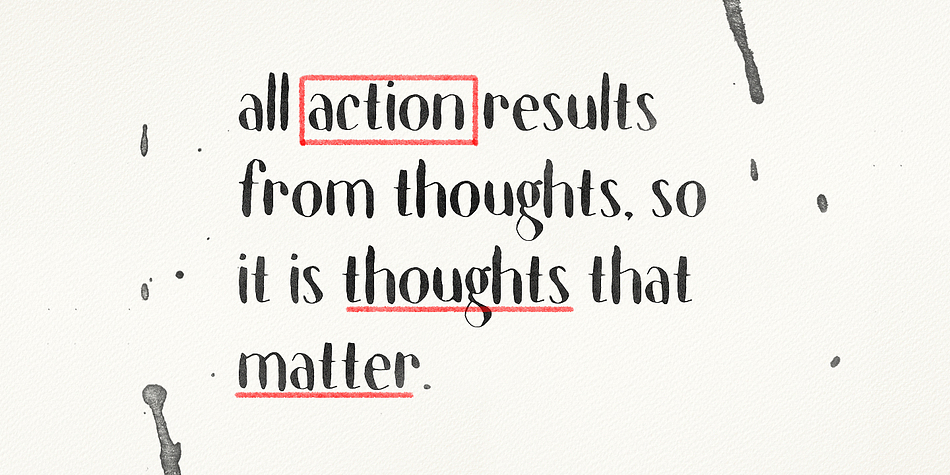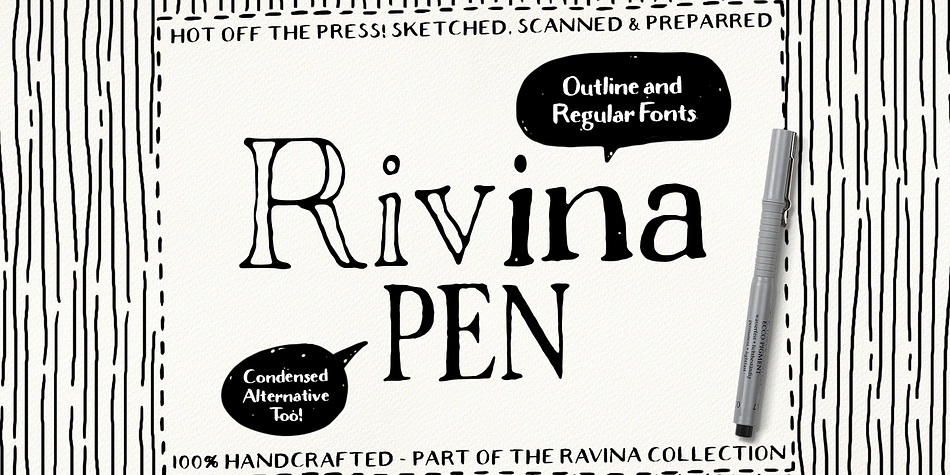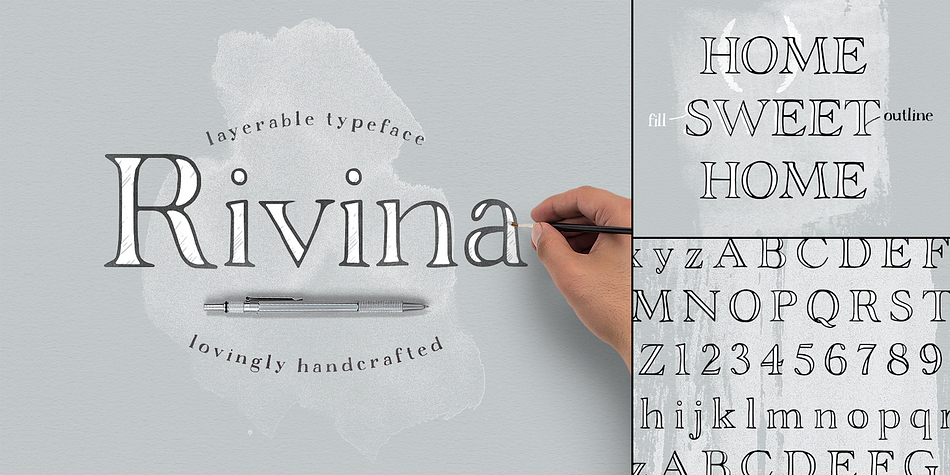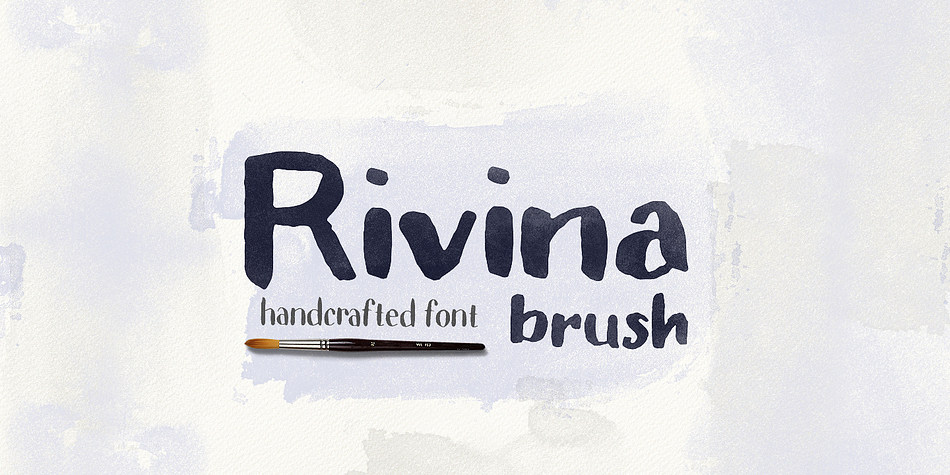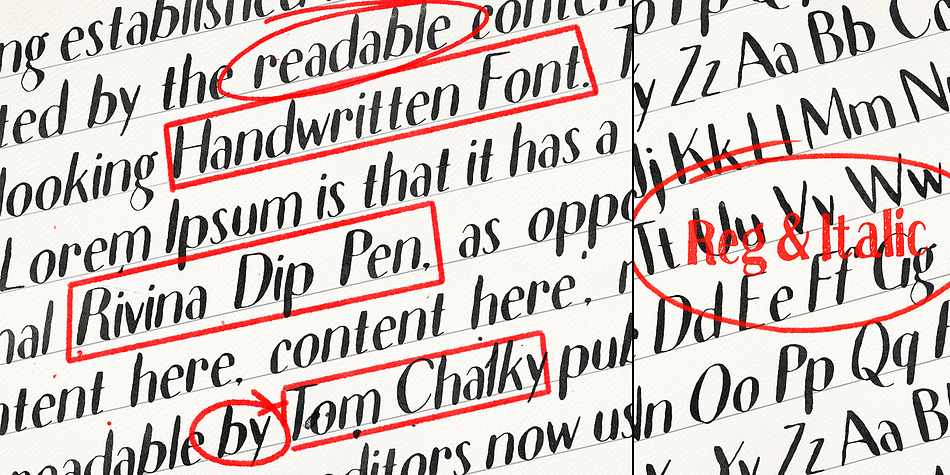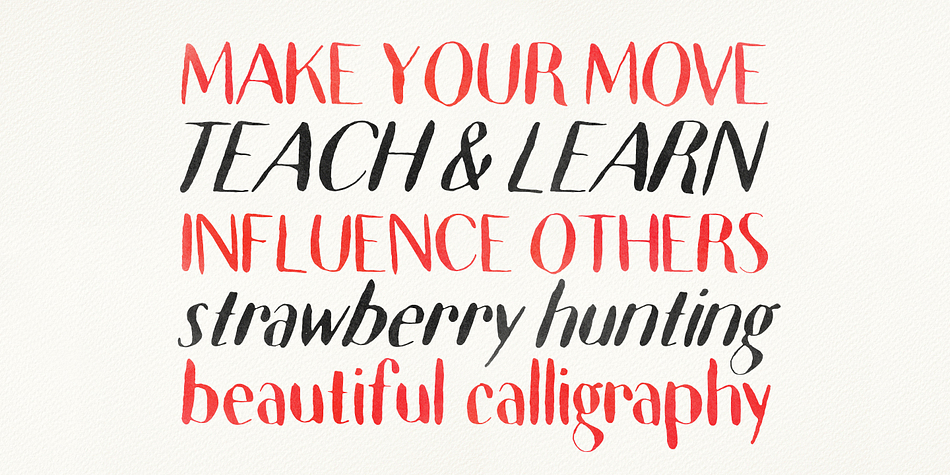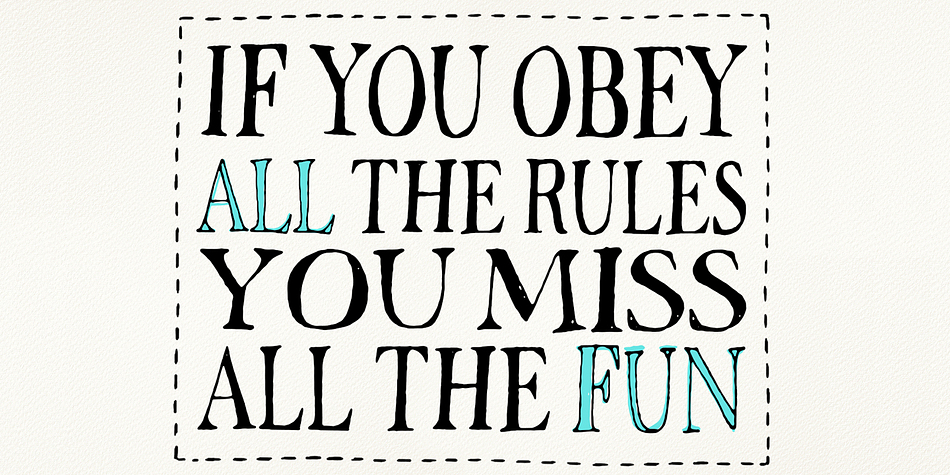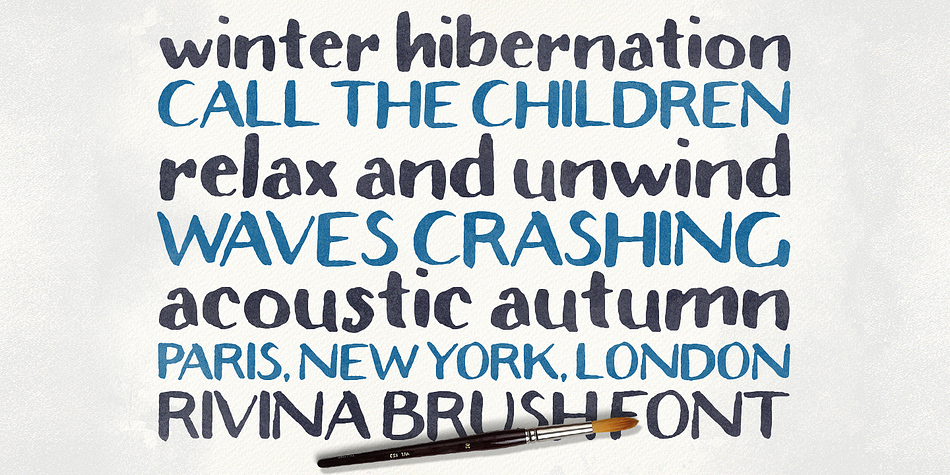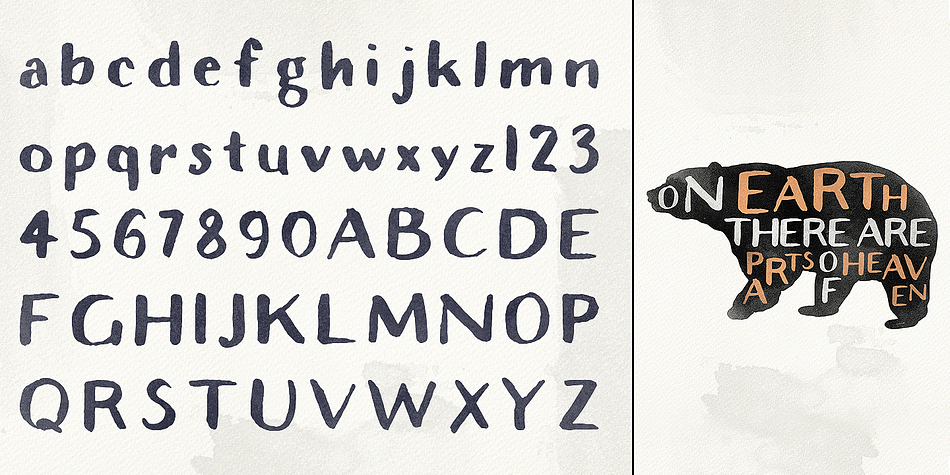
Rivina is a hand drawn and brush display font family. This typeface has nine styles and was published by Tom Chalky.
This creative and playful hand drawn font collection was inspired by the do it yourself movement that has exploded in recent years. What with the overload of all things virtual, this change of direction was inevitable, and one that I accept with open arms. These fonts will help add authenticity and personality to your digital work!
Rivina - By splitting Rivina into two parts, the creator is able to choose the color of both the fill and the outline independently. This simple split opens the doors to a whole new region of creativity and allows the creator to be more flexible with their design choices.
Rivina Brush - Another hand drawn font that has been added to the beautiful Rivina collection. The design of Rivina Brush is based off the original Rivina.
Rivina Pen - The spacing between the letters of the outline fonts and their solid siblings had to be different in order for them to work successfully when independent, so perfect alignment when layering the fonts is not possible. However, this was no accident, the outcome of the partnership can be both creative, unique and great fun to work with!
Rivina Dip Pen - An uniquely elegant hand drawn font that adds extra class to the Rivina Collection.